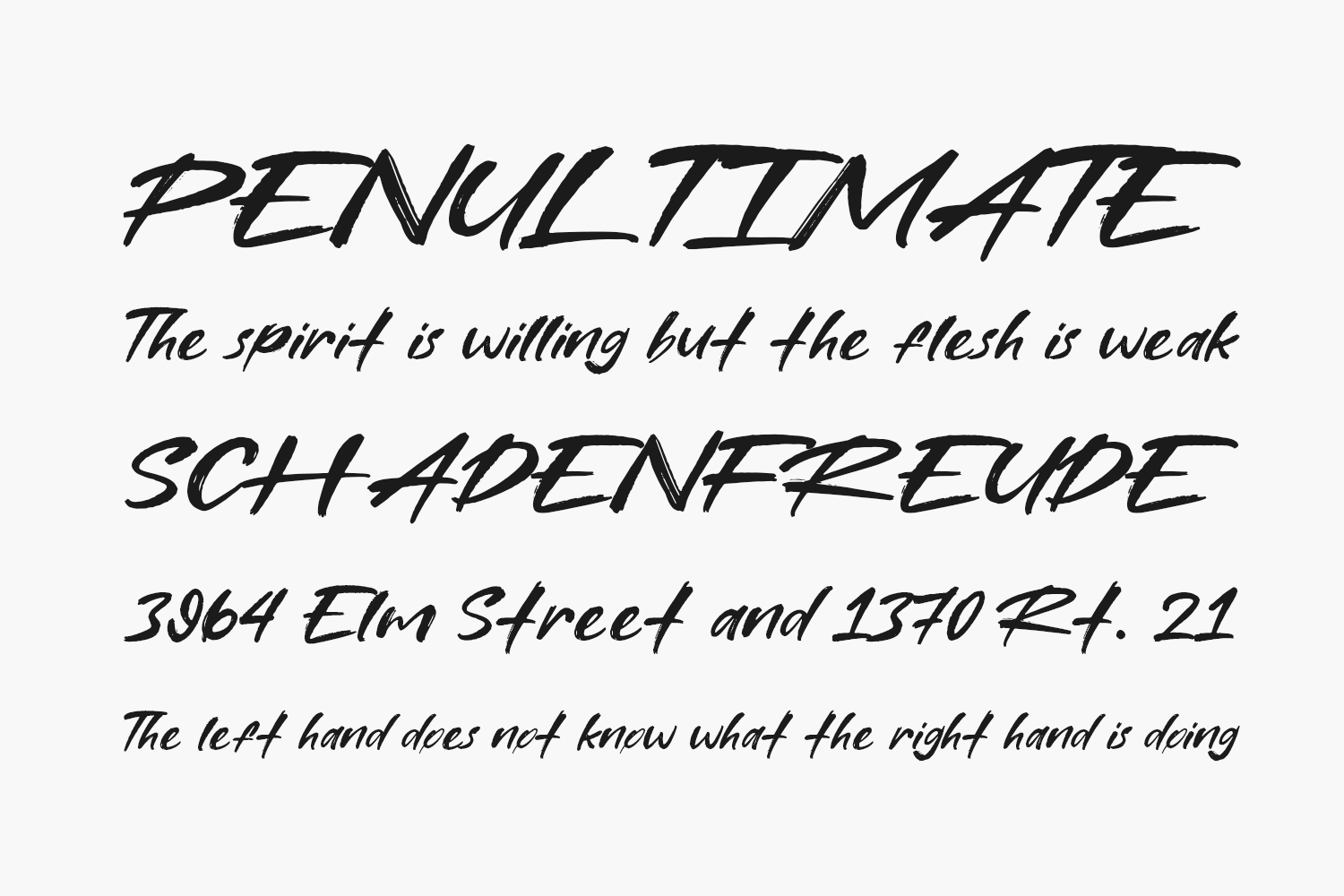
Discover the beauty of Best Regards Free Font, a clean, stylish, and modern script font that exudes elegance. Perfect for a wide range of applications including posters, logos, magazines, book covers, banners, and more, this font is a versatile addition to your creative arsenal. With its seamless adaptability to a vast array of projects, Best Regards effortlessly elevates your designs, making them truly outstanding. Don’t miss out on this amazing font and witness the magic it brings to your creative ideas. Best Regards Free Font is free for personal use only. Please purchase the full version for commercial use.